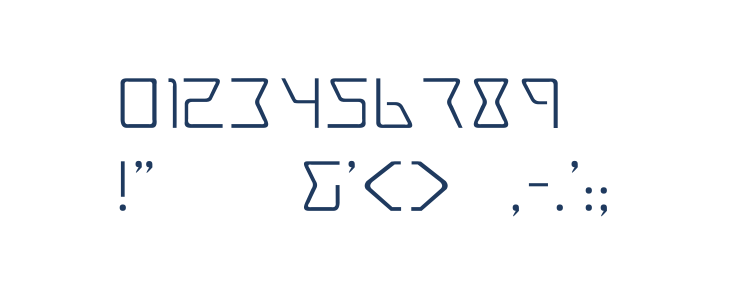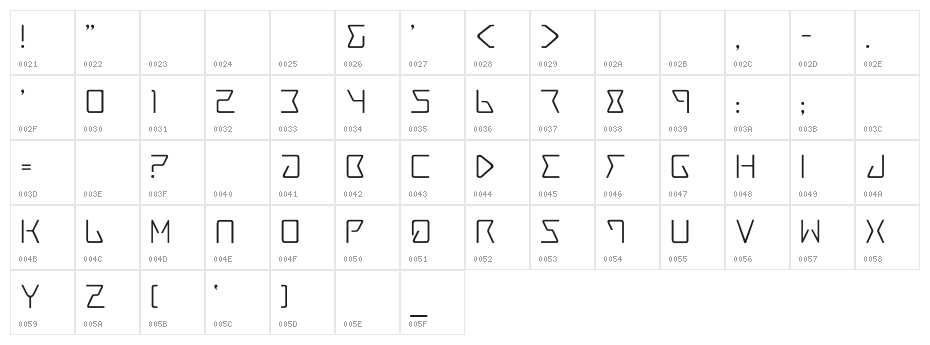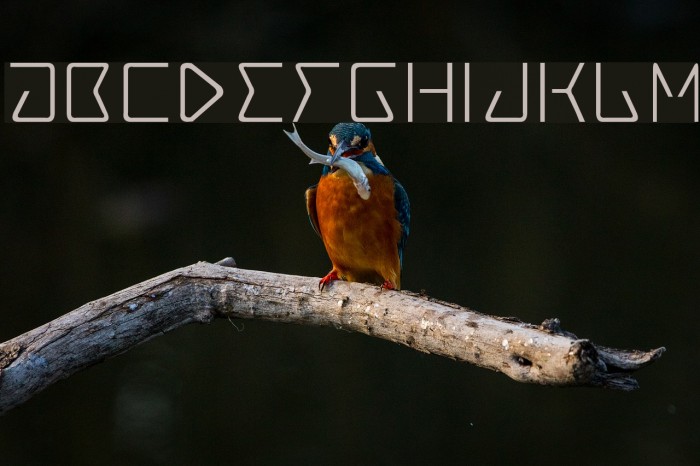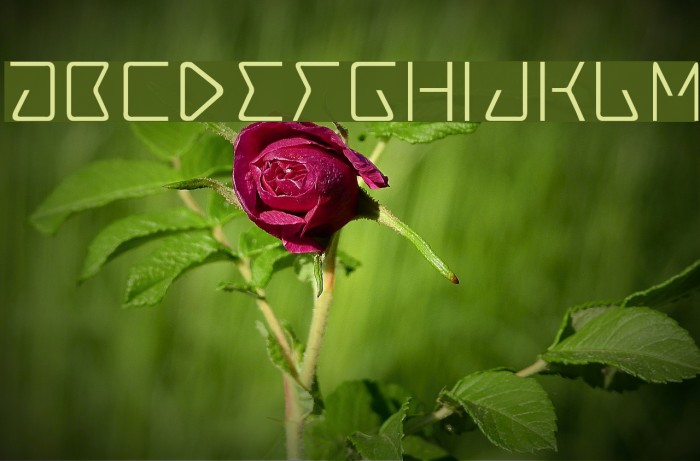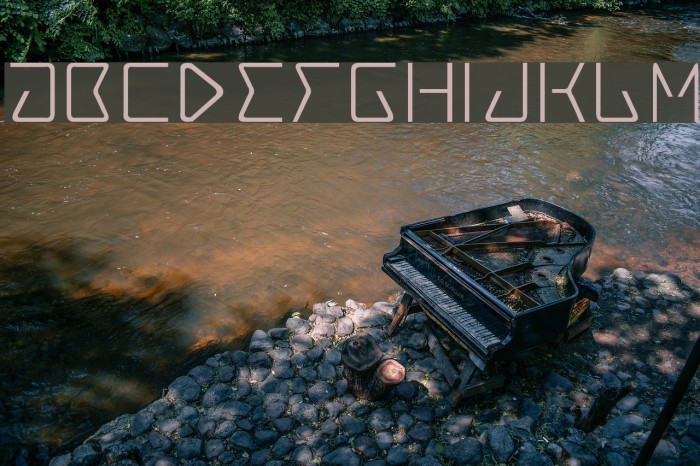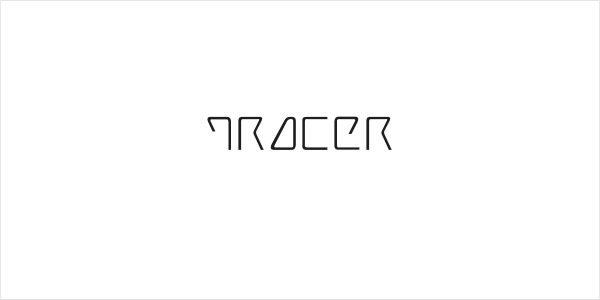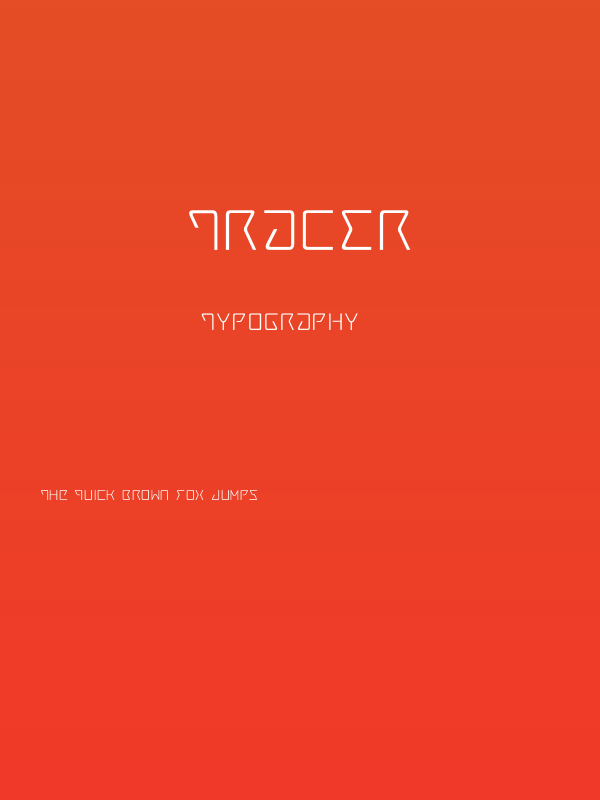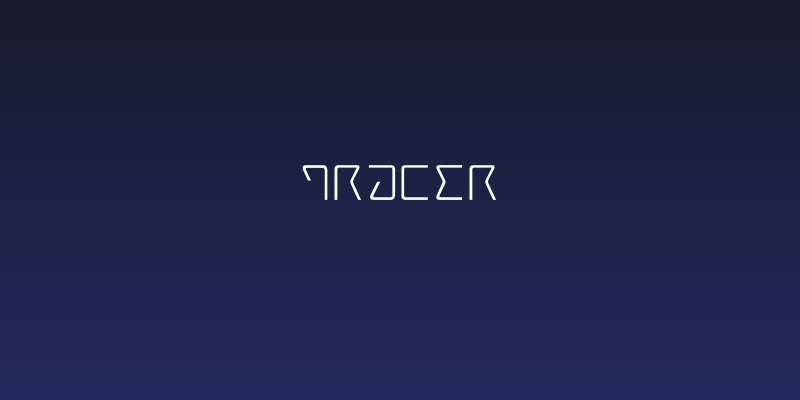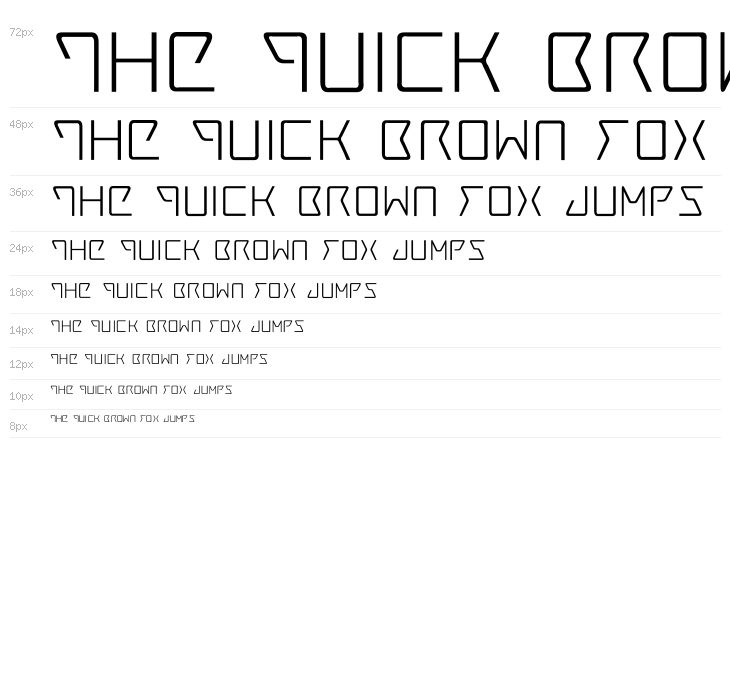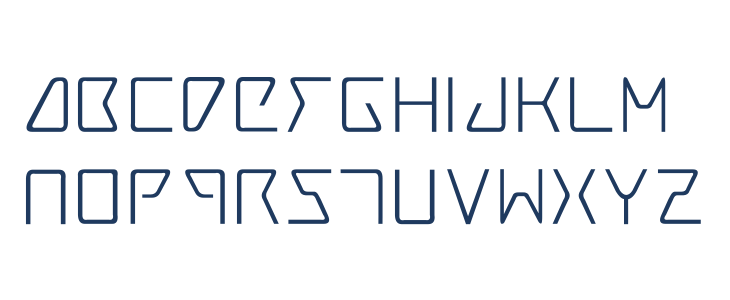
Tracer Font
Tracer Description
This font features a futuristic and geometric design, characterized by angular lines and a minimalist aesthetic. Each character is crafted with precision, using sharp angles and clean edges that give it a distinct, modern look. The uppercase and lowercase letters maintain a consistent style, with a unique approach to traditional letterforms. Numbers and special characters follow the same design principles, ensuring uniformity across the font. The overall appearance is sleek and contemporary, making it suitable for projects that require a cutting-edge and innovative feel.